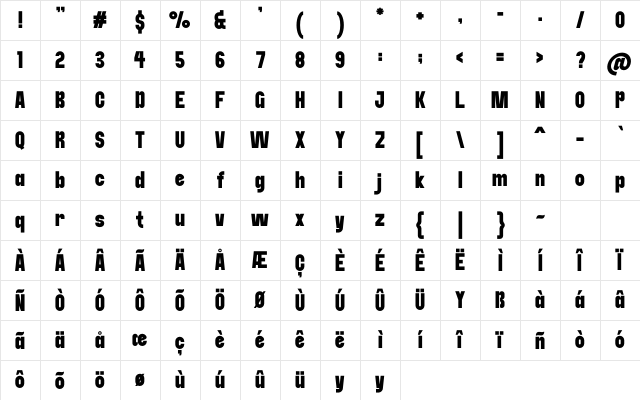
Gafien Regular
Designer: Febrie Setiawan
Design Context for Gafien
Gafien is a composed and adaptable typeface that performs quietly and consistently across a wide range of design contexts.
Pro Tip: Use Gafien in both headline and body roles to test its range before committing to a single application.